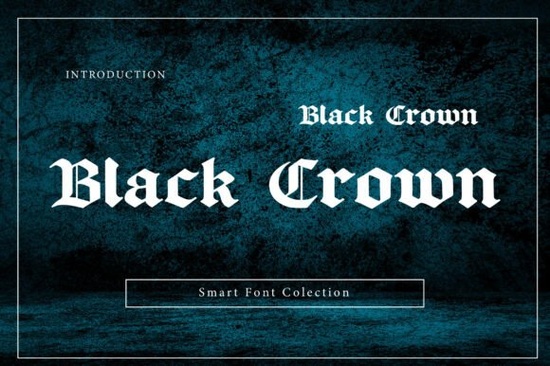
If you're looking for a typeface that brings a medieval, dramatic edge to your work, Black Crown Font is worth a close look. This bold blackletter display typeface draws from old English and gothic typography traditions, giving designers a typeface with sharp edges, strong contrast, and a distinctly royal presence.
Whether you're designing a logo, a tattoo stencil, a poster, or an album cover, this font delivers that heavy, old-world atmosphere that's hard to replicate with modern sans-serifs. Below, I'll break down what makes it work, where it shines, and how to get the most out of it.
What Makes This Blackletter Font Stand Out?
Gothic and blackletter fonts are everywhere in dark-themed design, but not all of them are built the same. Black Crown combines classic letterforms with a bold, high-contrast structure that reads well even at larger display sizes. The sharp edges give it a carved or engraved quality, which works especially well for:
- Logo design especially for brands with a dark, luxury, or heritage identity
- Tattoo artwork the ornamental details and strong lines translate beautifully to skin
- Poster and flyer design its dramatic weight grabs attention immediately
- Album covers perfect for metal, rock, or dark-themed music projects
- Vintage and gothic-themed designs invitations, packaging, merchandise
What I appreciate about this font is that it doesn't try to be overly decorative. It stays true to the blackletter tradition while keeping each letter readable. That balance matters when you're working on real projects where legibility and style need to coexist.
Where Can You Use a Gothic Display Typeface Like This?
If you sell on print-on-demand platforms or run a small design business, a font like this fills a specific gap in your toolkit. Gothic and medieval-inspired designs continue to perform well in niches like:
- Apparel and merchandise hoodies, hats, and band tees
- Event promotions Halloween events, medieval fairs, themed parties
- Book covers and chapter headings fantasy, horror, and historical fiction
- Social media graphics especially for brands with an edgy or alternative aesthetic
- Greeting cards and stationery particularly for dark romance or vintage styles
A strong blackletter typeface can set the tone for an entire project. Pair it with a clean sans-serif for body text, and you get a design that feels layered and intentional without being cluttered.
How Does It Compare to Other Gothic and Old English Fonts?
Each of these has its strengths. Black Crown stands out for its bold weight and regal structure, making it a solid choice when you need something that feels authoritative rather than just dark.
Tips for Working with Blackletter Display Fonts
Using a gothic display typeface effectively takes some care. Here are a few things I've picked up from working with fonts in this style:
- Keep body text simple. Pair blackletter headings with a clean serif or sans-serif for readability.
- Use it at larger sizes. Display fonts like Black Crown are designed for headings and titles, not paragraphs.
- Mind your spacing. Blackletter fonts often need adjusted kerning, especially in tight layouts.
- Limit the number of decorative fonts. One strong blackletter font per design is usually enough.
- Test at different scales. What looks great on screen might need adjustments for print or embroidery.
For a deeper look at available styles and licensing details, you can browse Black Crown Font directly on Creative Fabrica.
Is This Font Right for Your Next Project?
If your design needs a traditional, historical, or luxury feel with real visual weight, this typeface checks those boxes. It works well for designers, crafters, and small business owners who want an old-world aesthetic without sacrificing clarity.
That said, it's not the right fit for everything. If you need something softer or more casual, a different style will serve you better. But for gothic branding, dark-themed merchandise, tattoo flash sheets, or vintage poster layouts, Black Crown delivers exactly what you'd expect from a quality medieval-inspired display font.